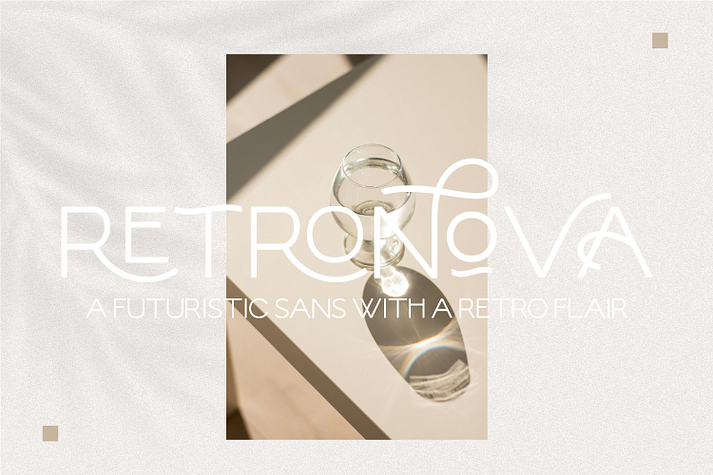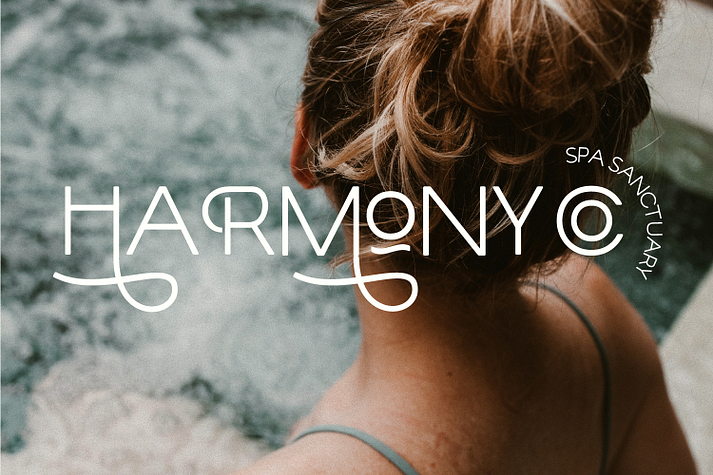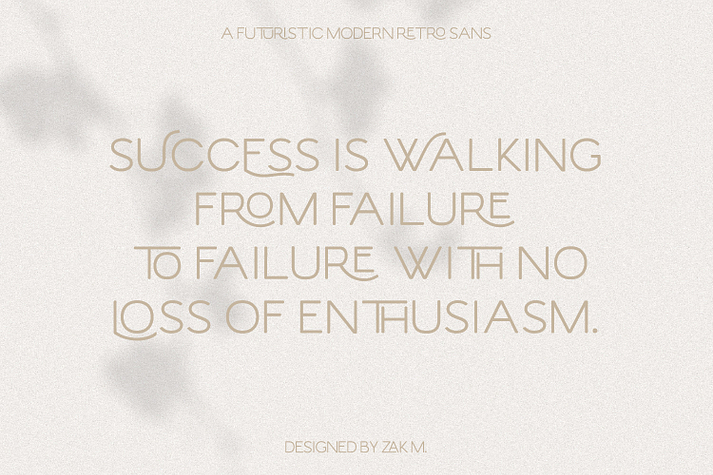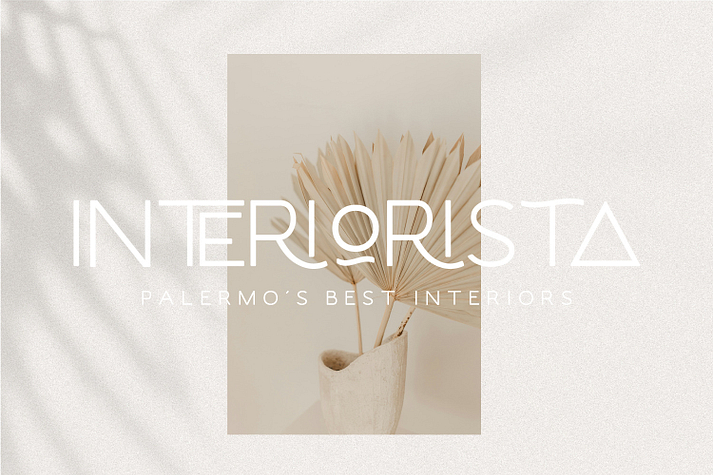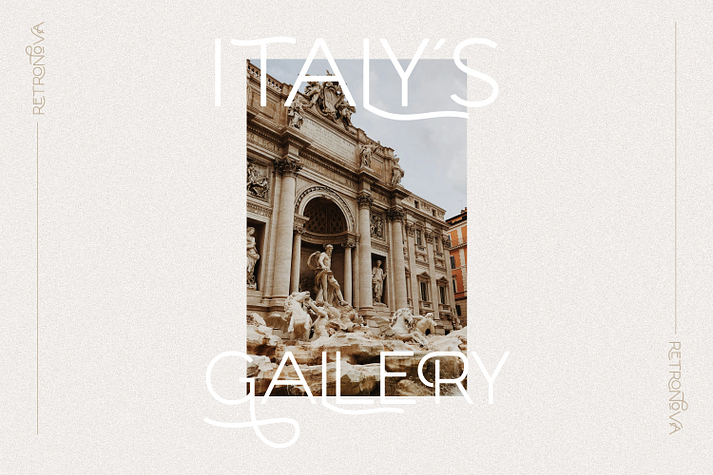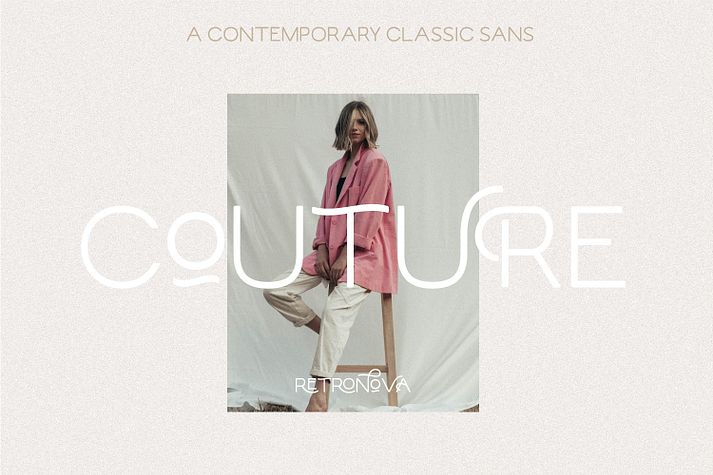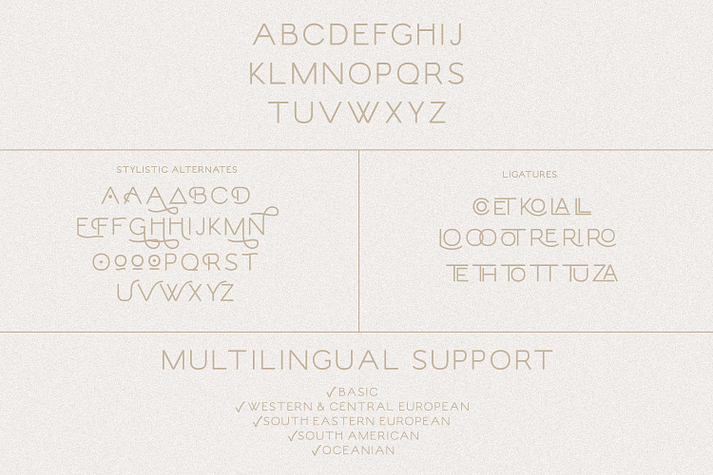
Retro Nova
Retro Nova is a font family published by Prestige Artsy Studio.
Introducing "Retro Nova" — a sleek monoline sans serif font that blends retro charm with modern elegance. This versatile typeface features stylish alternates and ligatures for creative typography in logos, branding, and more. Elevate your designs with "Retro Nova" for a touch of vintage-inspired sophistication.